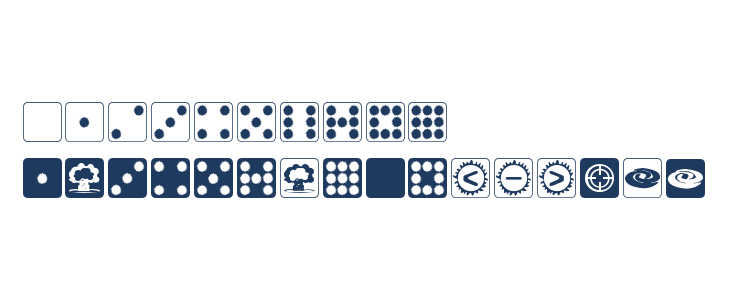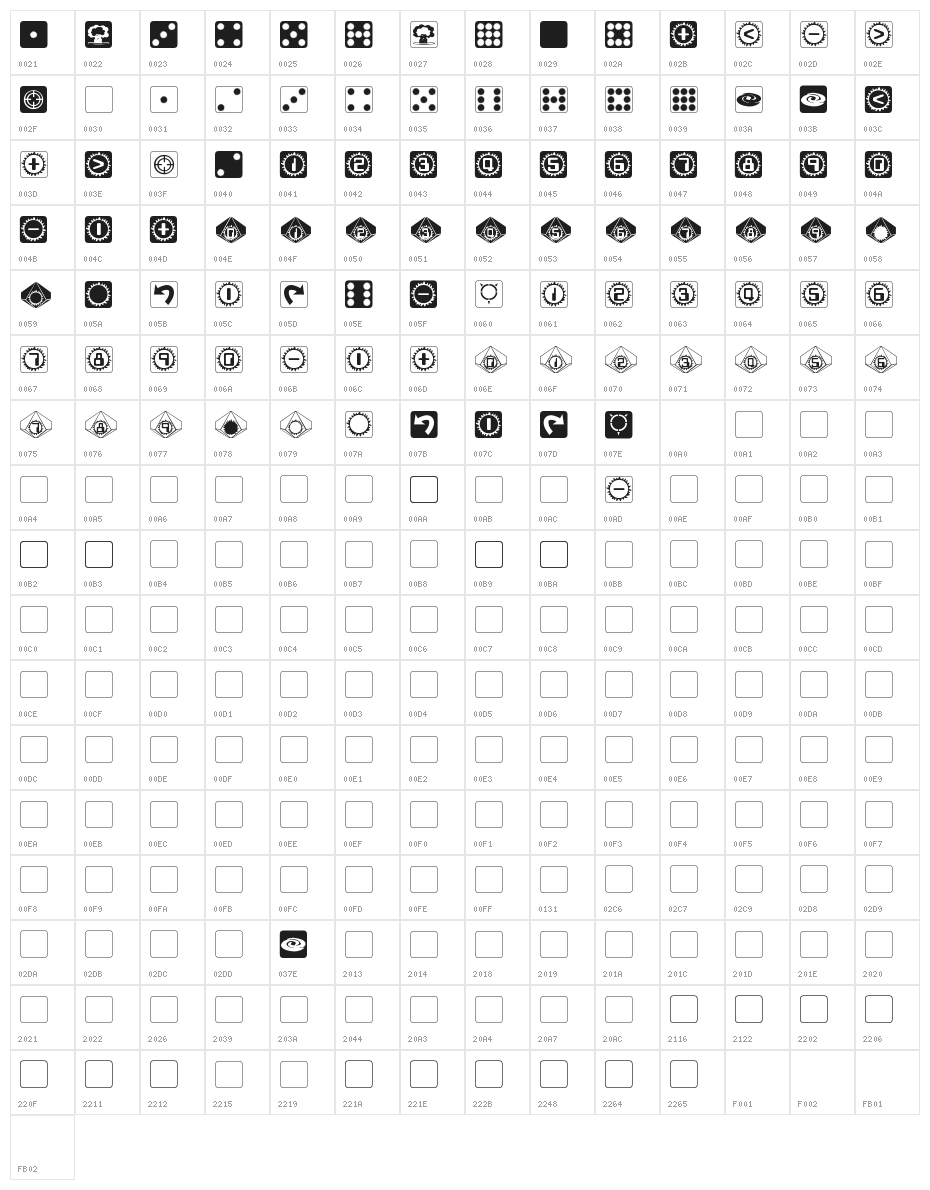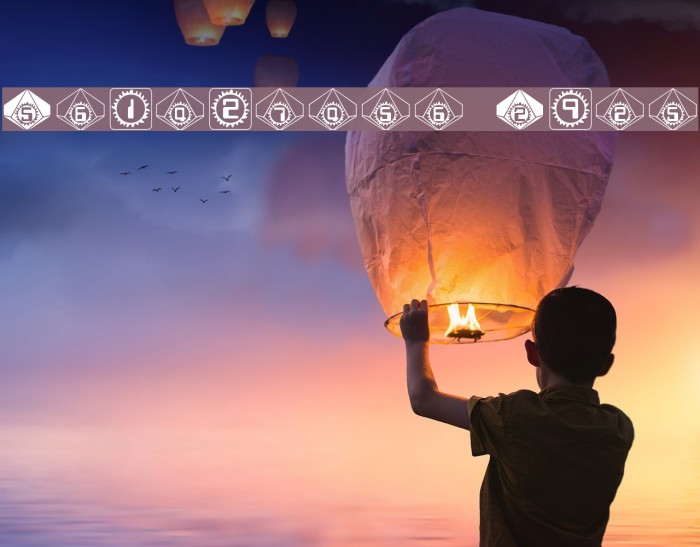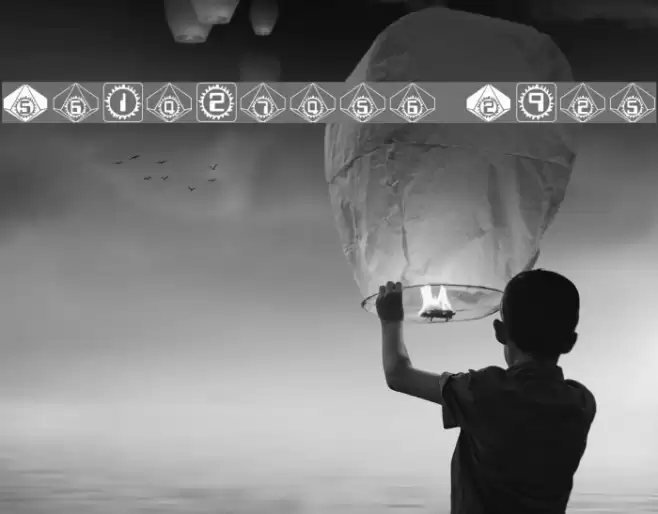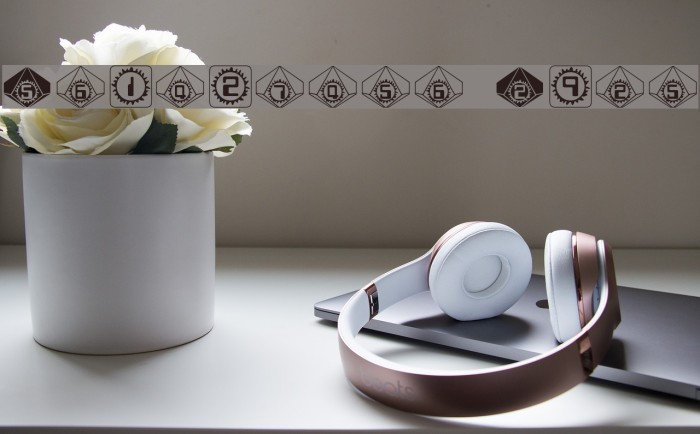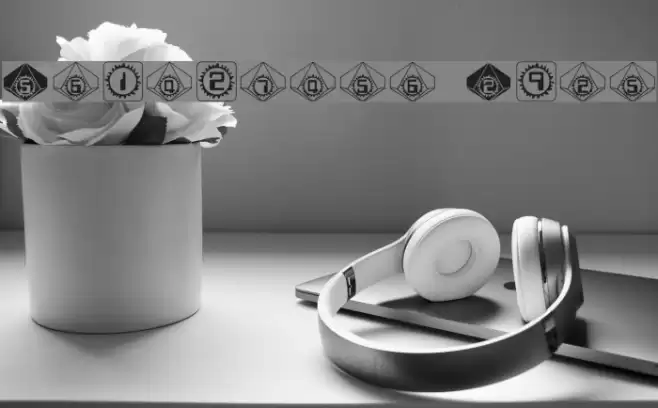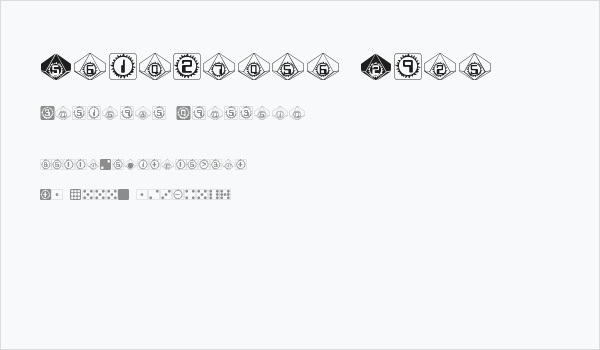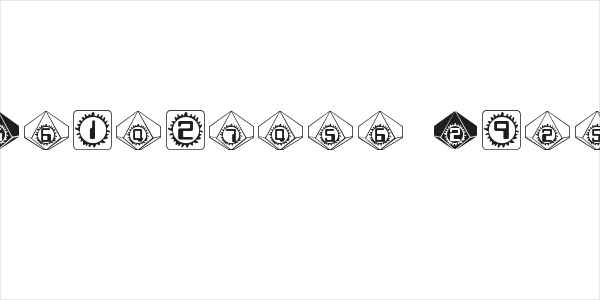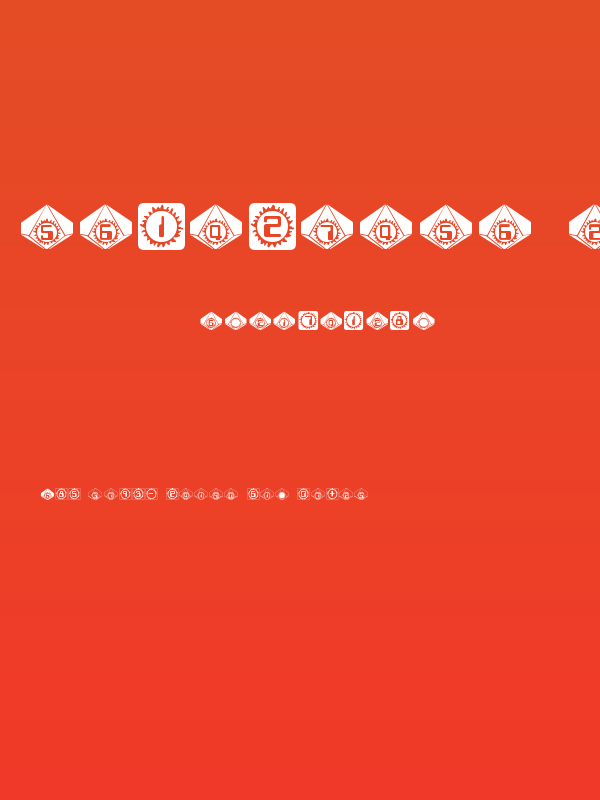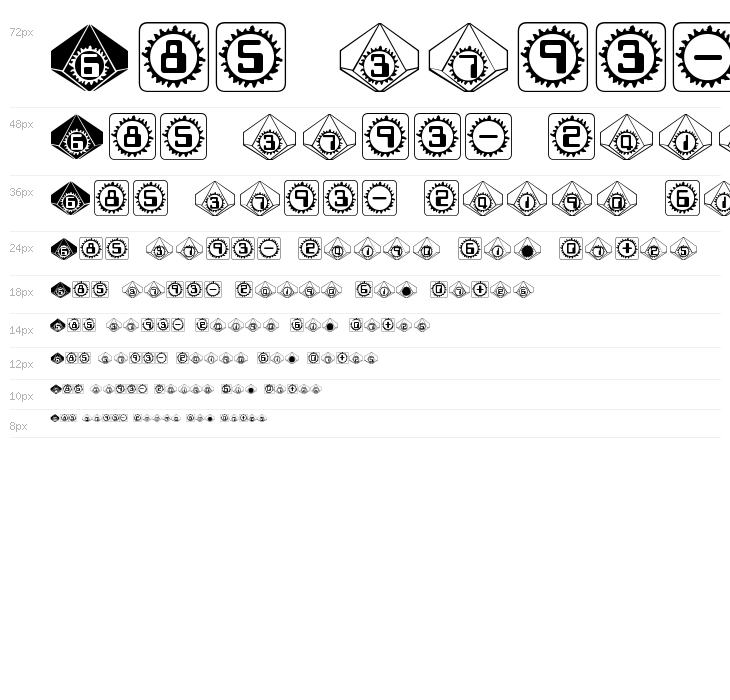
Starburst Pips Font
Starburst Pips Description
This is a decorative font featuring numbers and symbols enclosed within various geometric shapes, such as squares and pentagons. Each character is designed with a unique starburst pattern, giving it a playful and dynamic appearance. The font includes numbers from 0 to 9 and a selection of special characters, each presented in a bold, high-contrast style. The geometric shapes and starburst elements create a visually striking effect, making it suitable for creative and eye-catching designs.
| Overall Style | Playful, Decorative |
| Use Case | Logos, Posters, Game Design |
| Proposed Projects | Ideal for board games, educational materials, playful posters, and creative design projects. |